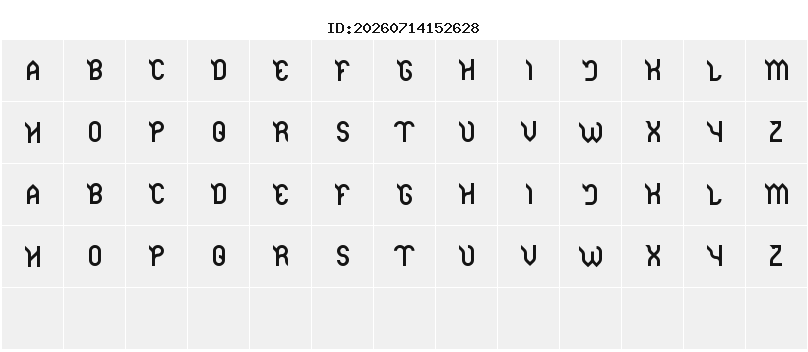
Jaguar Preview
• Font Name: Jaguar
• Full Font Name: Jaguar
About Jaguar.ttf
Jaguar.ttf is a modern, elegant sans-serif font designed for ultimate readability and visual harmony. Perfect for branding, headlines, web design, and print materials.